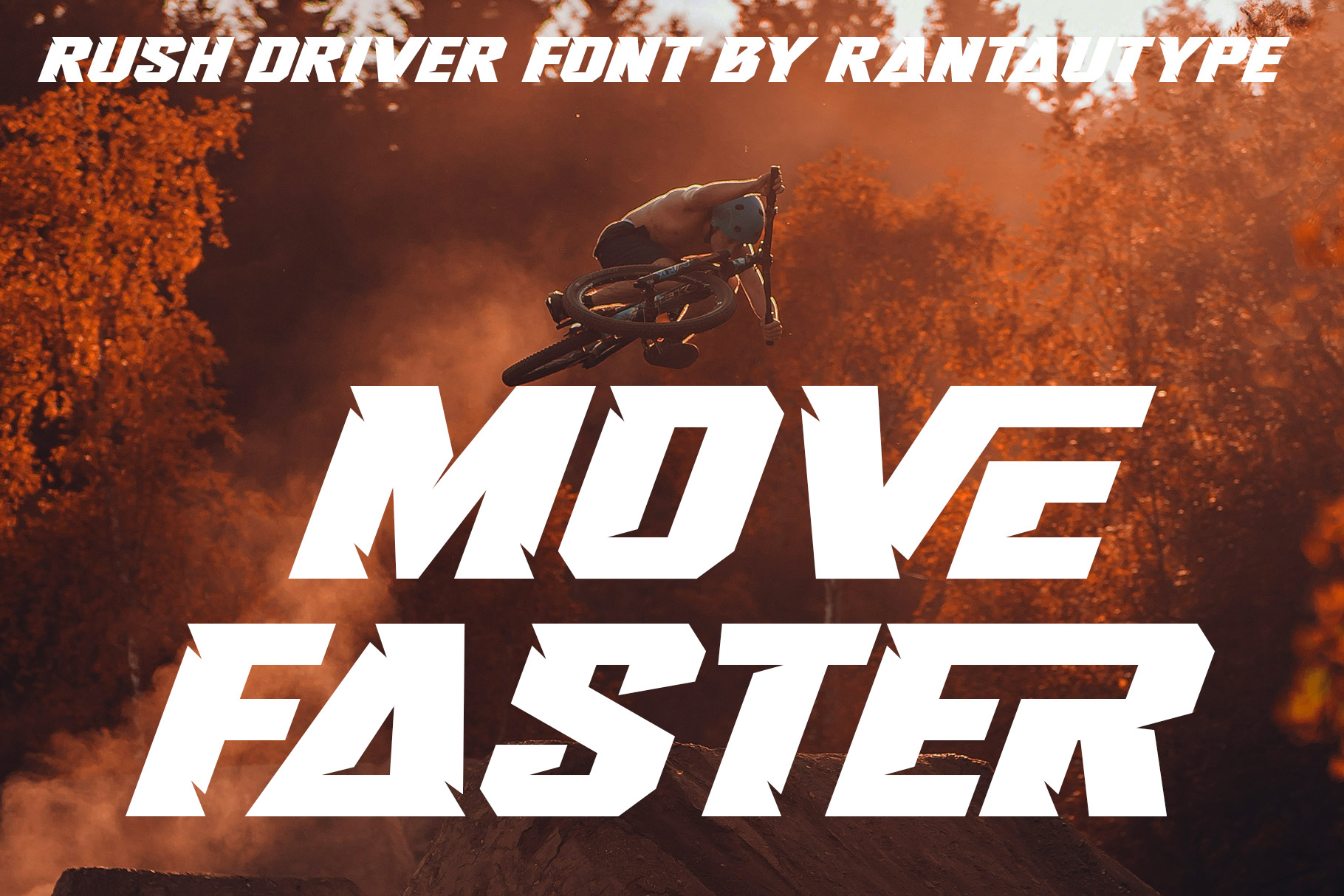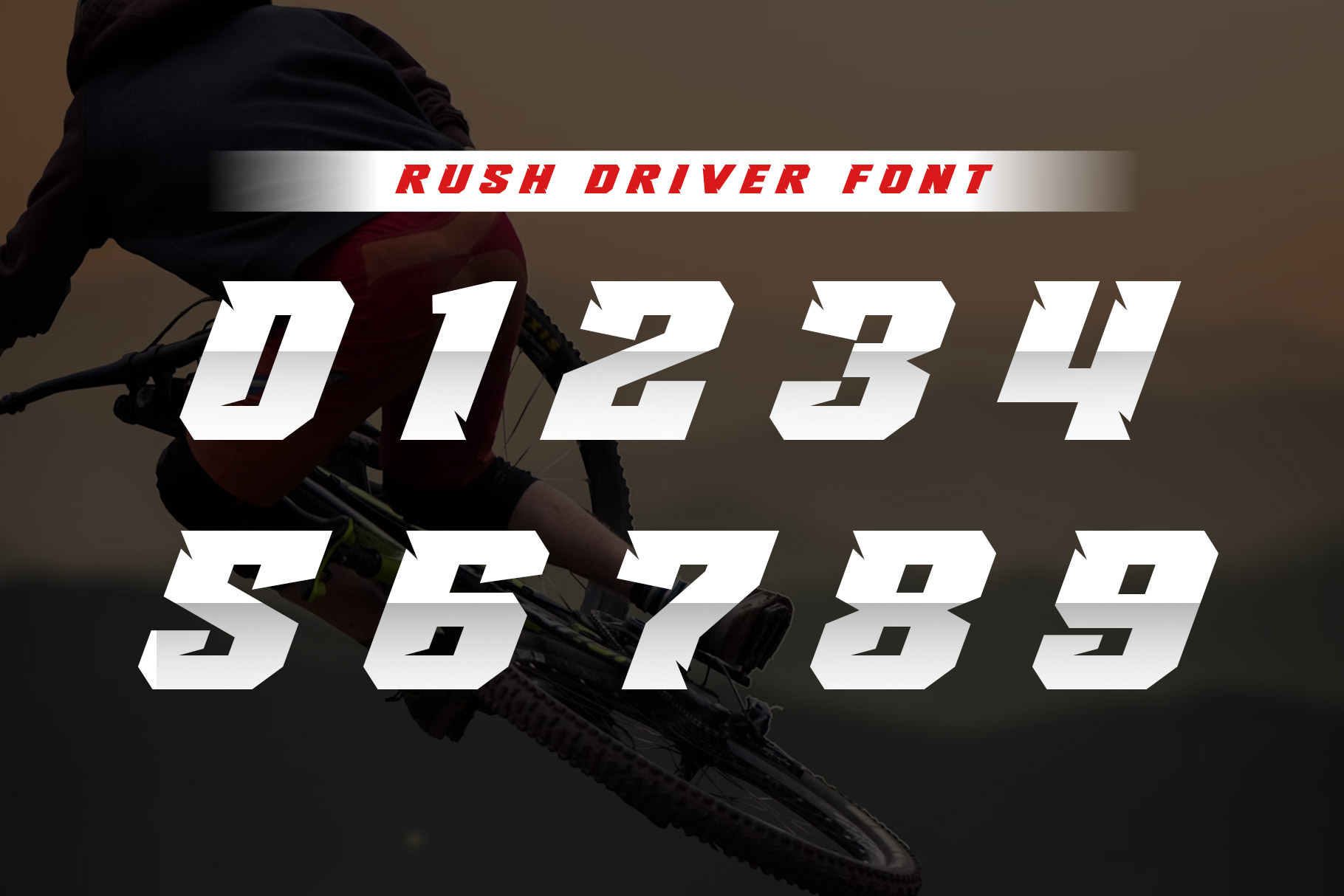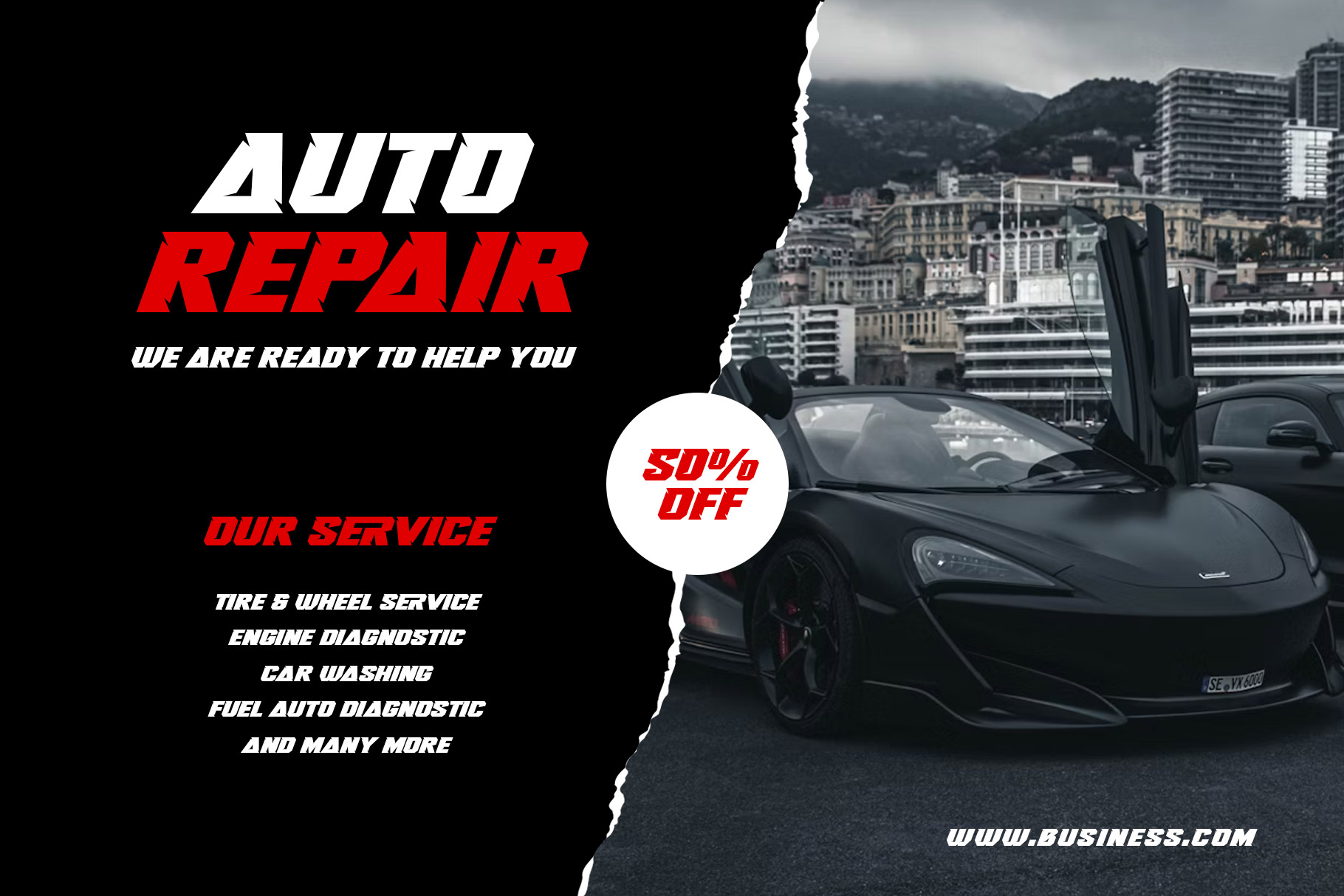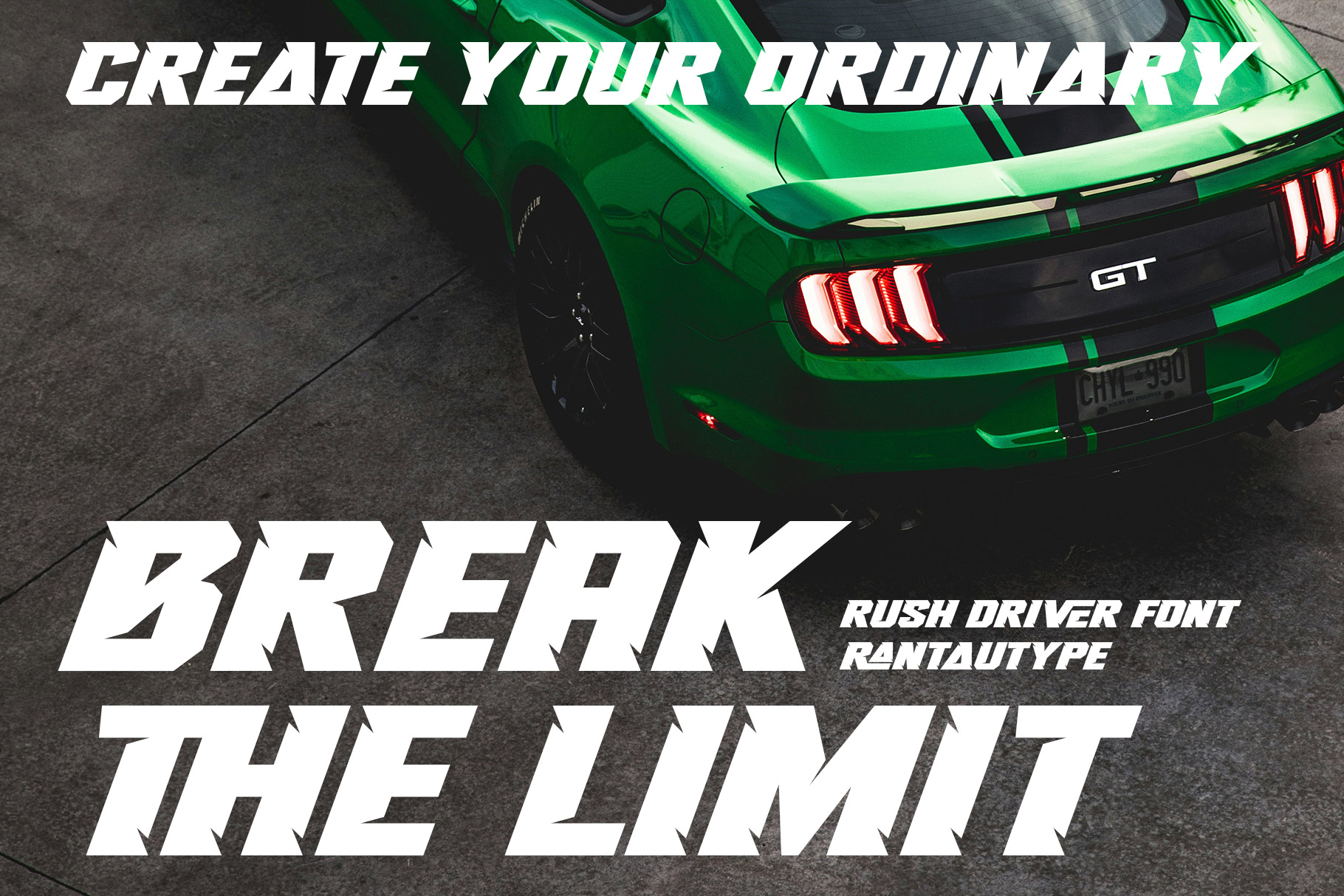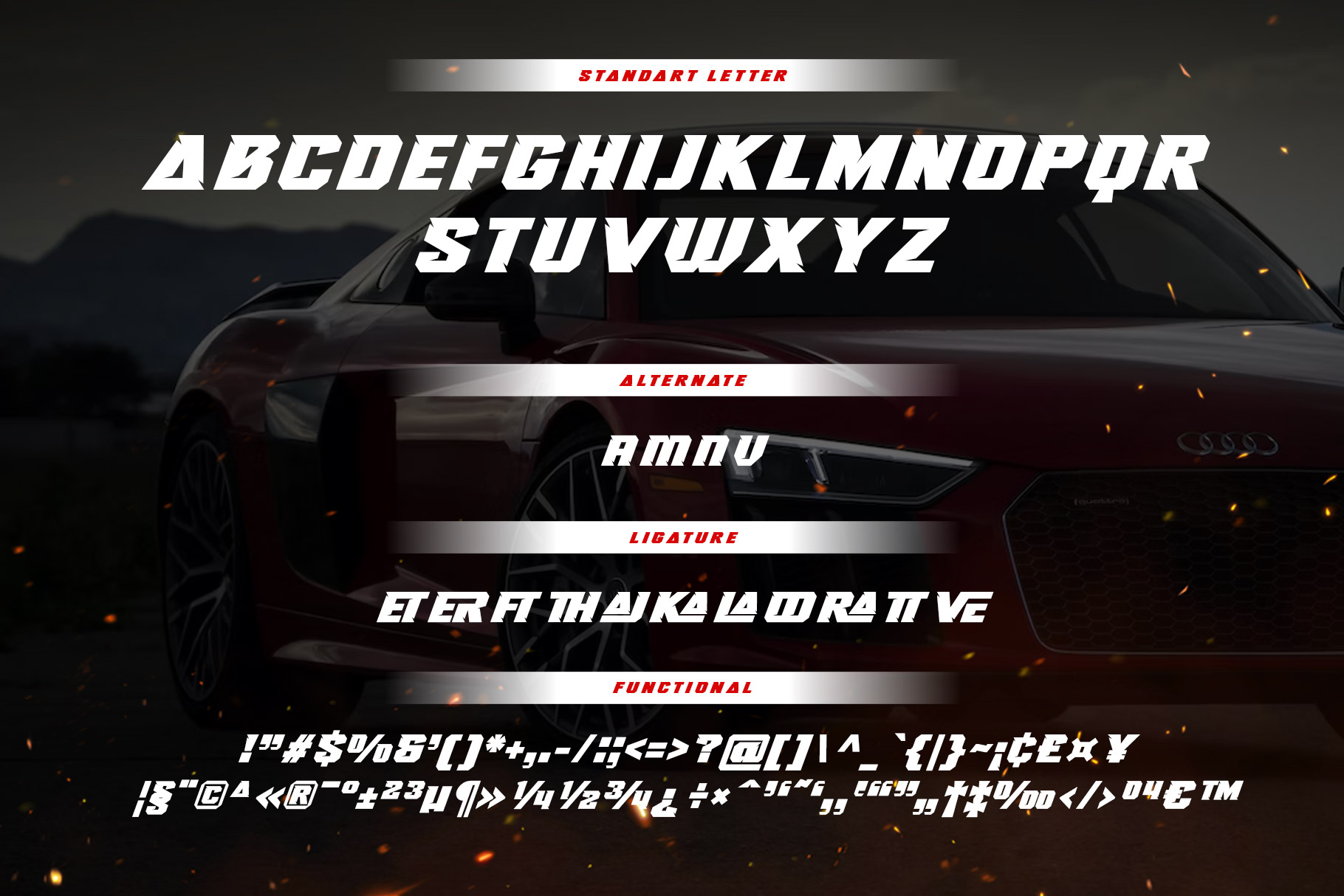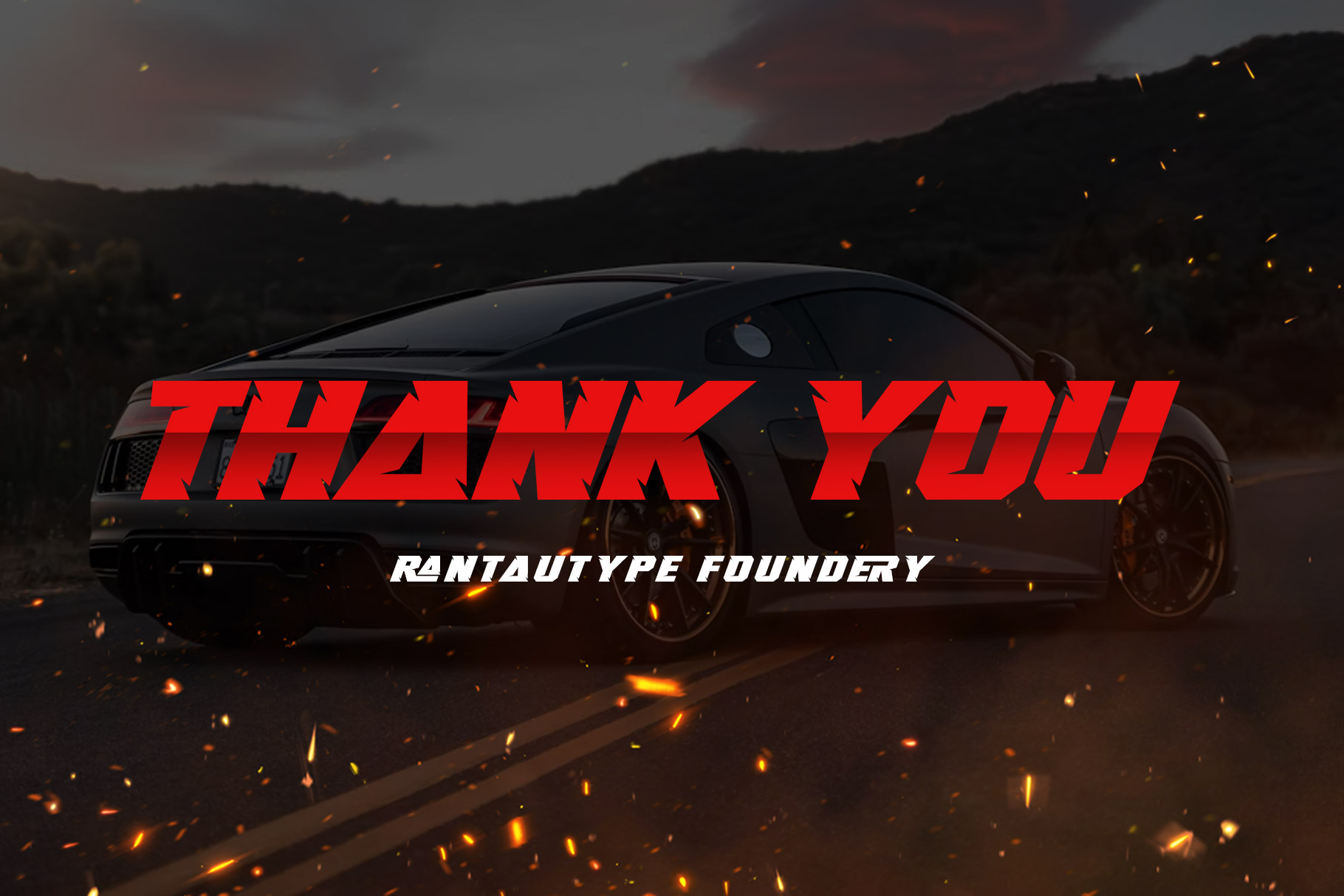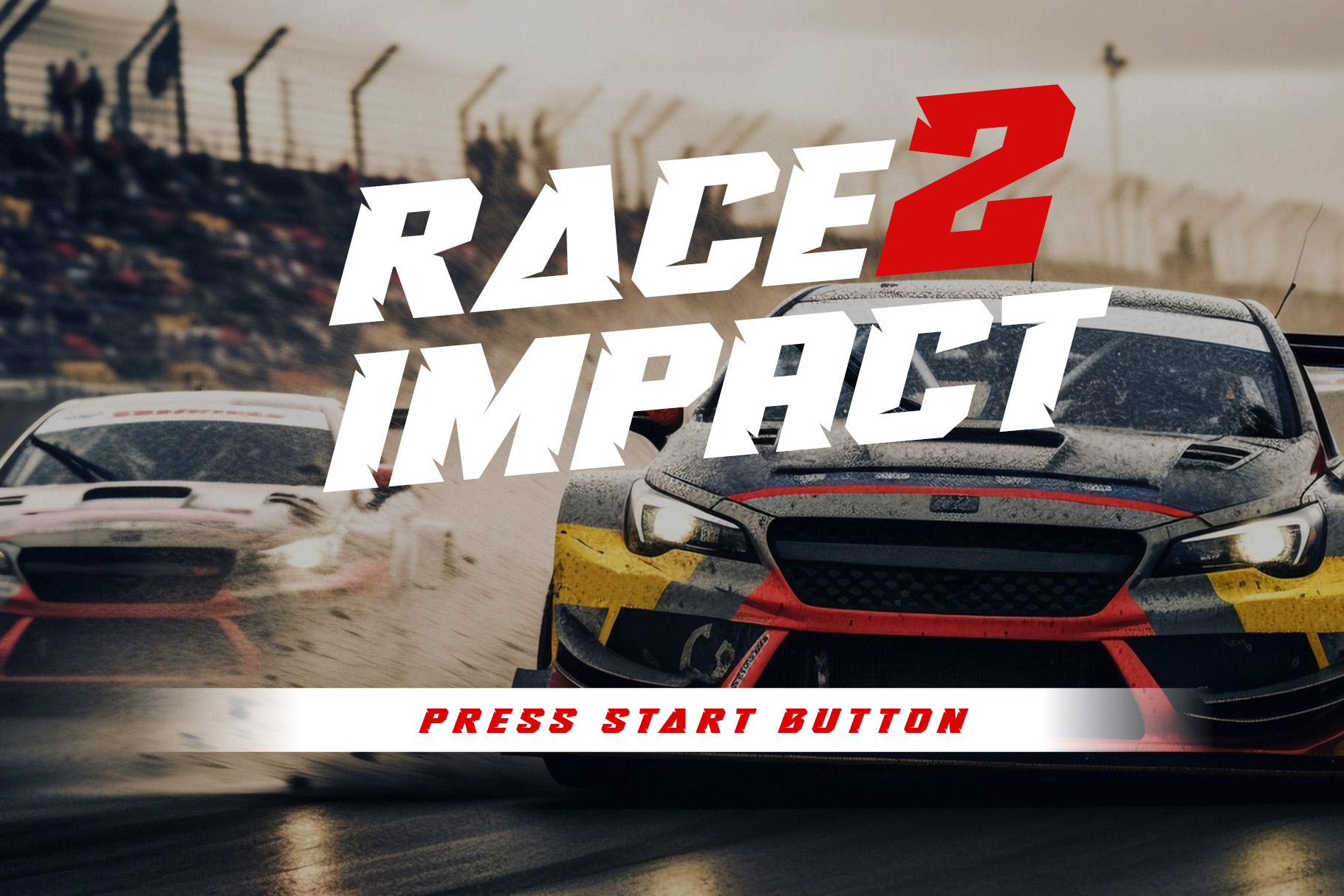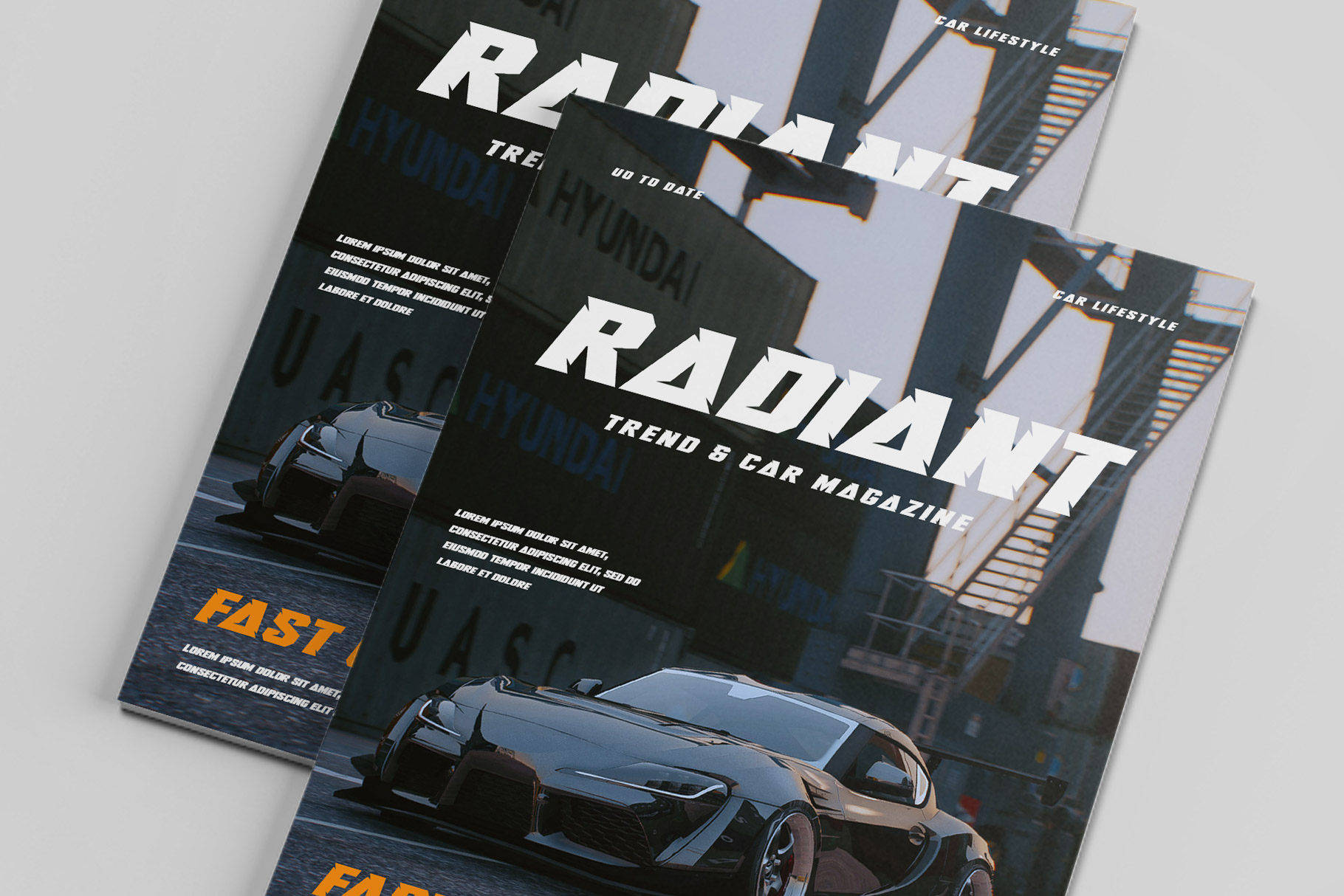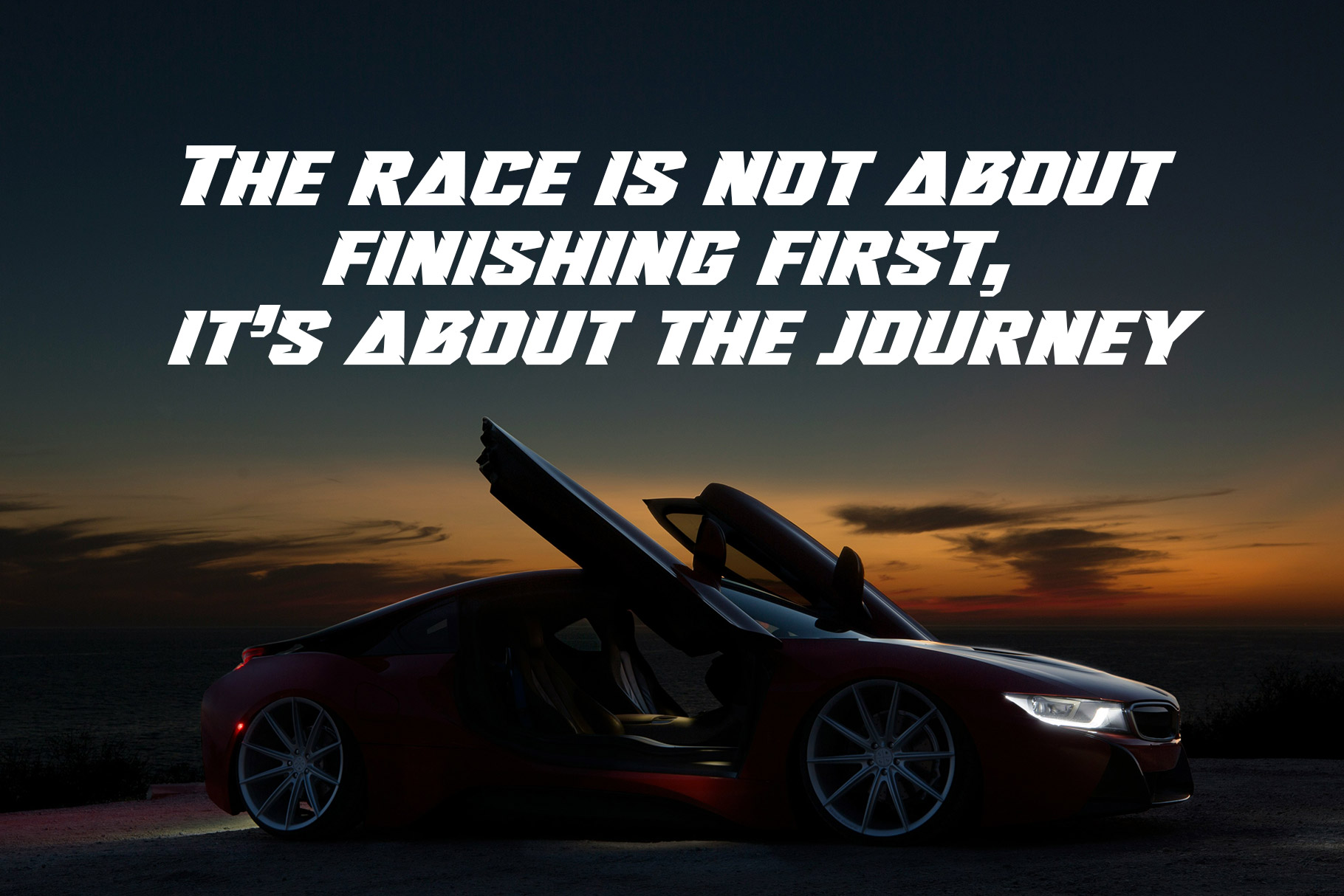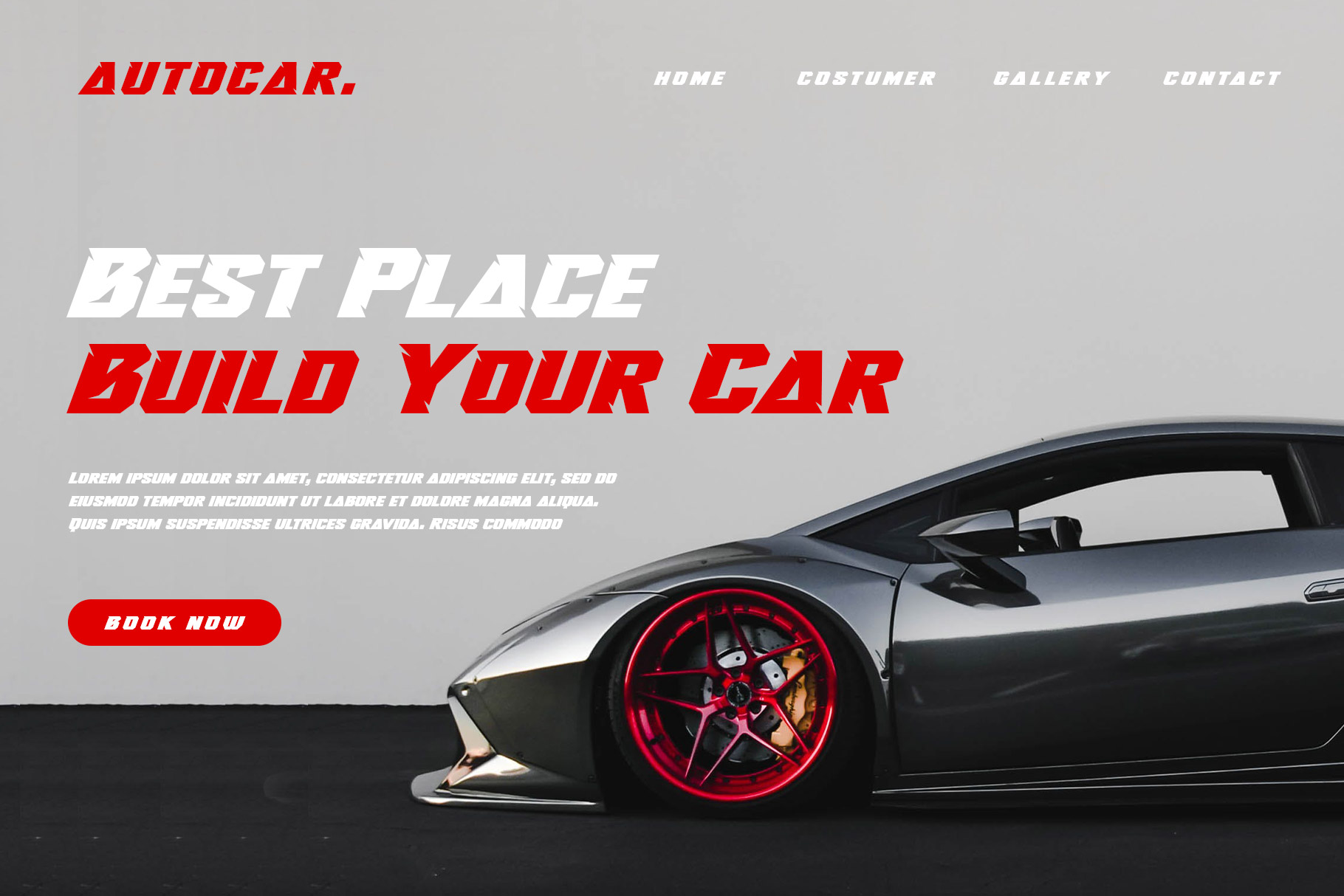
Rush Driver Racing Font
Rush Driver is showing race in visual form. Modern and fast is two word for this font, inspired by the fast car brand and futuristic digital concept with slash concept in each character. Rush Driver come with alternate, ligature and mulilingual support.
Perfectly suitable for any creative endeavor, sports brand, logo, esports, games, posters, film/movice, car brands, automotive events, advertising, motorcycles, digital futuristic concept and design with race or fast concept.
• Standar letter A-Z and a-z